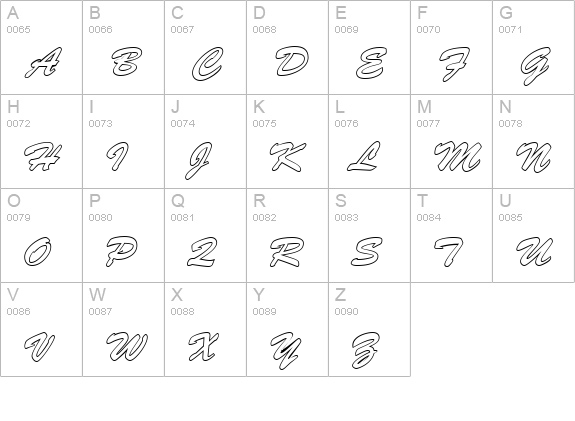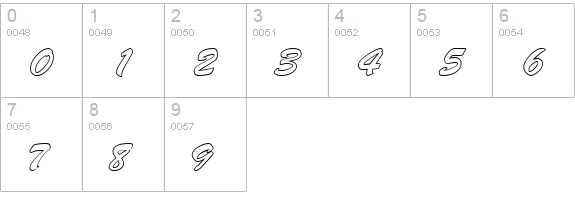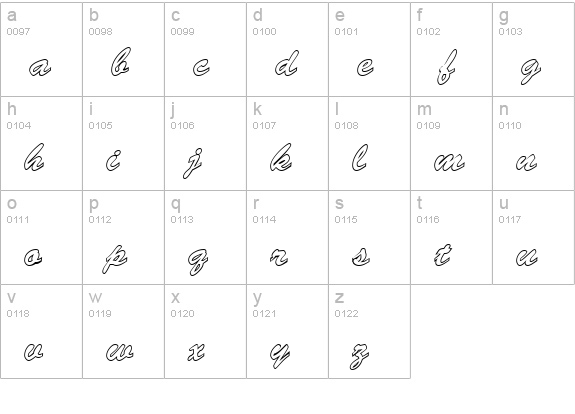
BrushStrokeHollow Regular Font Details
BrushStrokeHollow Regular is the standard, neutral variant in the BrushStrokeHollow typeface family \xE2\x80\x94 well suited to general body text, paragraphs, and standard typographic work.
BrushStrokeHollow Regular font is a stylish and eye-catching typeface that exudes creativity and artistic flair. Each letter is meticulously designed with brushstroke details, giving it a unique and handcrafted look. This font is perfect for projects that require a touch of elegance and sophistication. The BrushStrokeHollow Regular font is not only aesthetically pleasing but also versatile, making it suitable for a wide range of design applications including logos, branding, invitations, posters, and more. Its bold and modern style is sure to make your text stand out and leave a lasting impression on viewers. The best part is that BrushStrokeHollow Regular font is available for free download at FontsMarket.com. This means you can easily access this stunning font and incorporate it into your projects without any cost. Don't miss out on this fantastic opportunity to enhance your designs with the BrushStrokeHollow Regular font today!